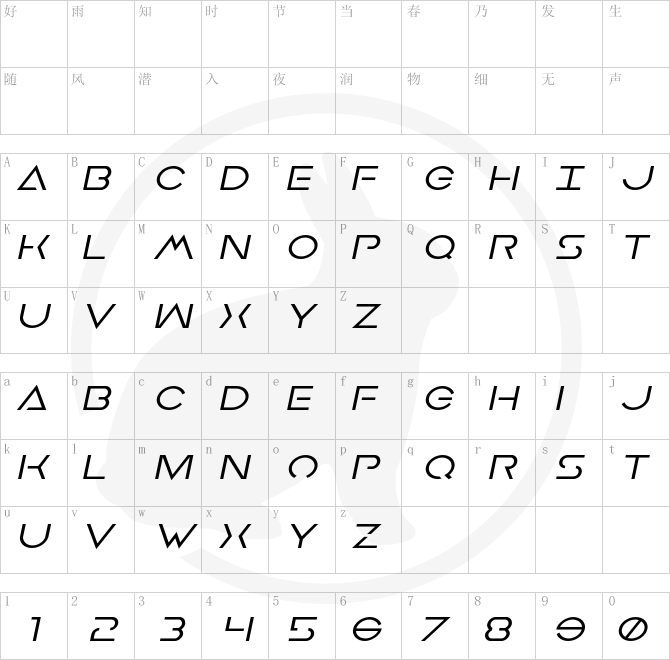
- Font Name:Earth Orbiter Expanded Italic
Earth-Orbiter-Expanded-Italic.ttf is a very beautiful artistic font, Earth-Orbiter-Expanded-Italic.ttf is widely used in the design and printing of various books and pictures,Earth-Orbiter-Expanded-Italic.ttf has a strong visual impact,Earth-Orbiter-Expanded-Italic.ttf is a commonly used font in newspapers, magazines and books, and is used in posters, e-commerce Poster design, store design, logo design, font design and other fields.Earth-Orbiter-Expanded-Italic.